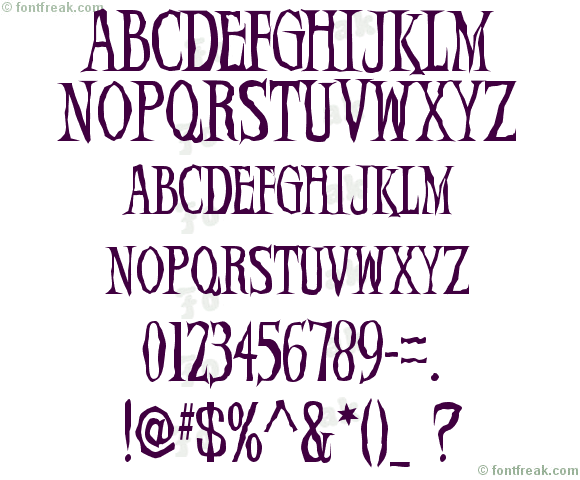
Demon Night
Demon Night — Character Map
About Demon
Demon by Brain Eaters Font Co. is a striking display font that captures attention with its unique and captivating design. As a decorative typeface, it features bold strokes with a high contrast that adds an element of drama to any project. The letterforms are characterized by sharp angles and exaggerated serifs, creating an edgy aesthetic that resonates with themes of mystique and allure. The spacing is tight, allowing the characters to flow seamlessly together while maintaining readability, making it visually engaging.
This font is ideal for a variety of creative applications. It shines on movie posters, particularly for horror or fantasy genres, where its bold and intense appearance can evoke the desired atmosphere. Additionally, it's a perfect choice for event flyers, especially those targeting themed parties or Halloween events. The Demon font also works well in merchandise design, such as T-shirts and stickers, appealing to niche markets that appreciate alternative styles. Furthermore, it can add a unique flair to branding for small businesses, especially those in the entertainment or arts sectors.
Target audiences for this font include graphic designers looking to create standout visuals, small business owners aiming to establish a distinctive brand identity, and content creators seeking to infuse personality into their projects. The versatility of the Demon font allows it to cater to diverse creative needs, ensuring it can adapt to various contexts.
What sets the Demon font apart is its ability to blend artistic flair with functional design. This typeface stands out not just for its aesthetic appeal but also for its versatility in application. With a Demon font free download available, designers and creatives can easily incorporate this eye-catching typeface into their work, enhancing the overall impact of their designs.